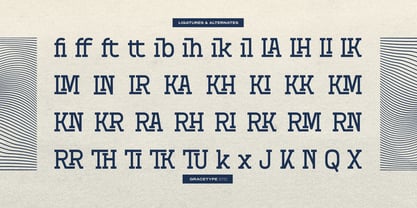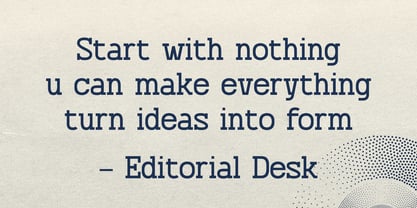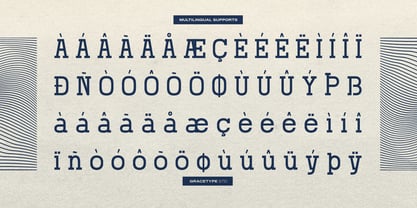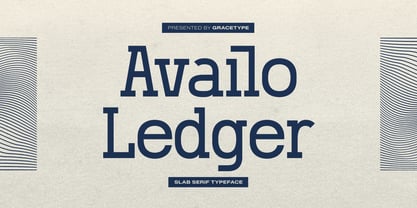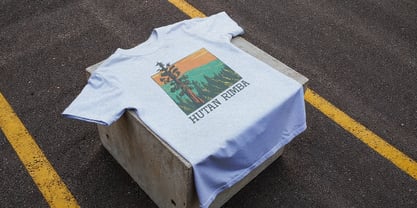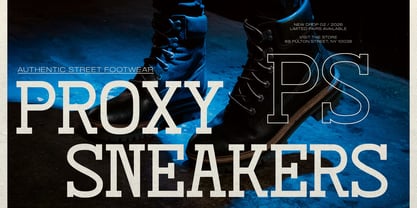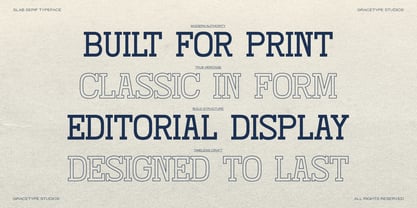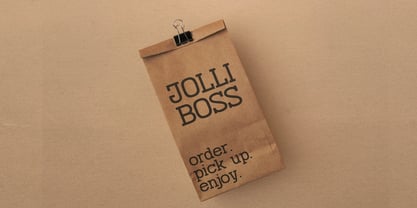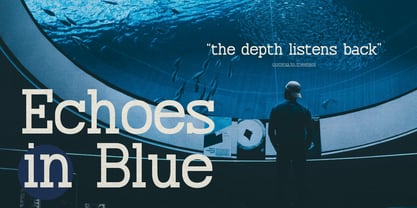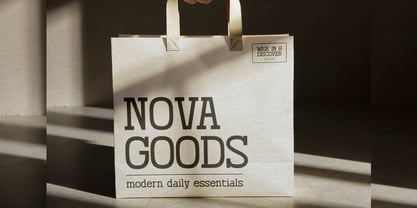
Availo Ledger
Availo Ledger | Slab Serif Typeface, from Gracetypestudio, suitable for any projects such as: logos, branding projects, homeware designs, product packaging, mugs, quotes, posters, shopping bags, t-shirts, book covers, name card, invitation cards, greeting cards, label, photography, watermark, special events, and all your other lovely projects that need a Slab Serif taste.